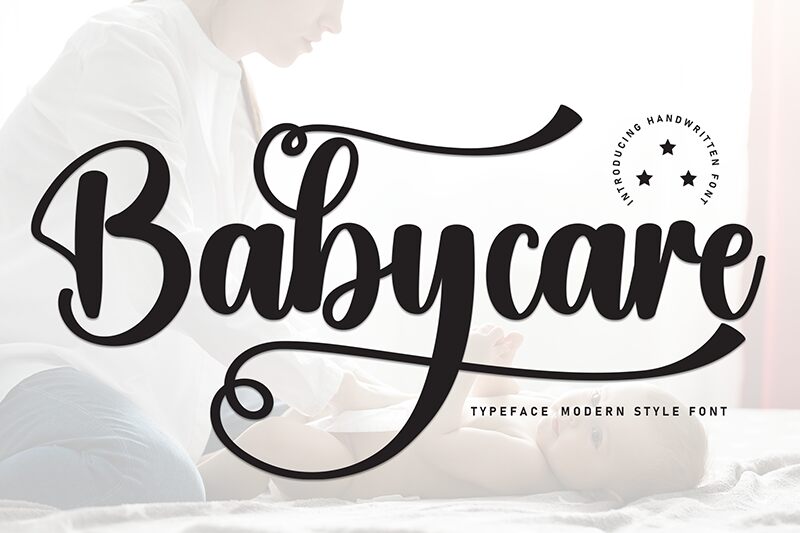
Babycare
Babycare font by Scratchones is an elegant, expressive, and inviting handwritten font with cohesive letterforms. Its flowing and immersive design beautifully captures a whimsical feel which makes it ideal for fun creative projects. The handwriting typeface combines both classical characteristics associated with its style with a few modern features.
Use it in baby shower invitations, poster designs, social media posts, or event banners. It can also be used to decorate photo albums front covers, journals and diary covers. Baby product packaging designs work well as greeting cards and other printed items such as receipts or books for kids.